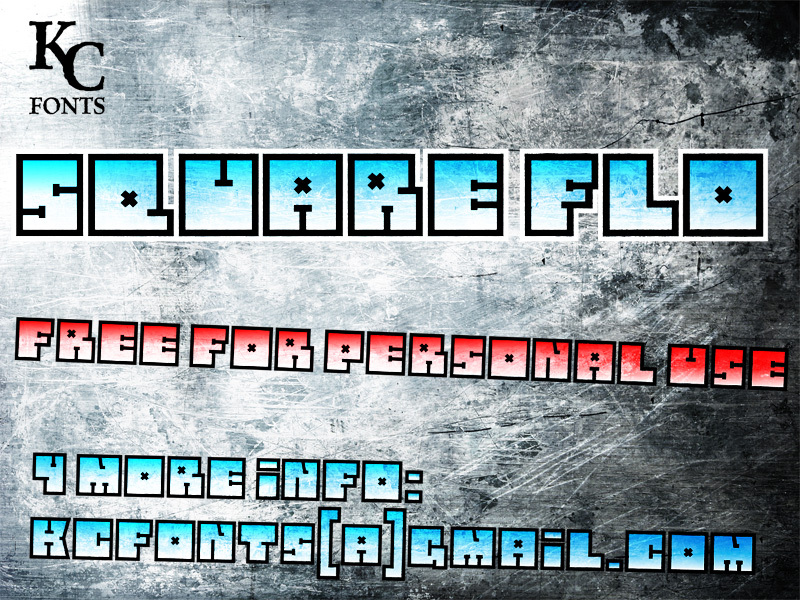
Square Flo, designed by Kevin Christopher of KC Fonts, is a free futuristic display font with broad, squared letterforms and an architectural profile. Deep cutouts and offset crossbars make the capitals resemble circuit paths or machined panels. The shapes are stark but not uniform.
Designers in electronic music, arcade culture, or science-fiction entertainment can use it for posters, game graphics, and merchandise with a mechanical edge. In publishing, its internal bars can turn a magazine masthead into part lettering, part diagram, for stories about technology or speculative design.
Square Flo